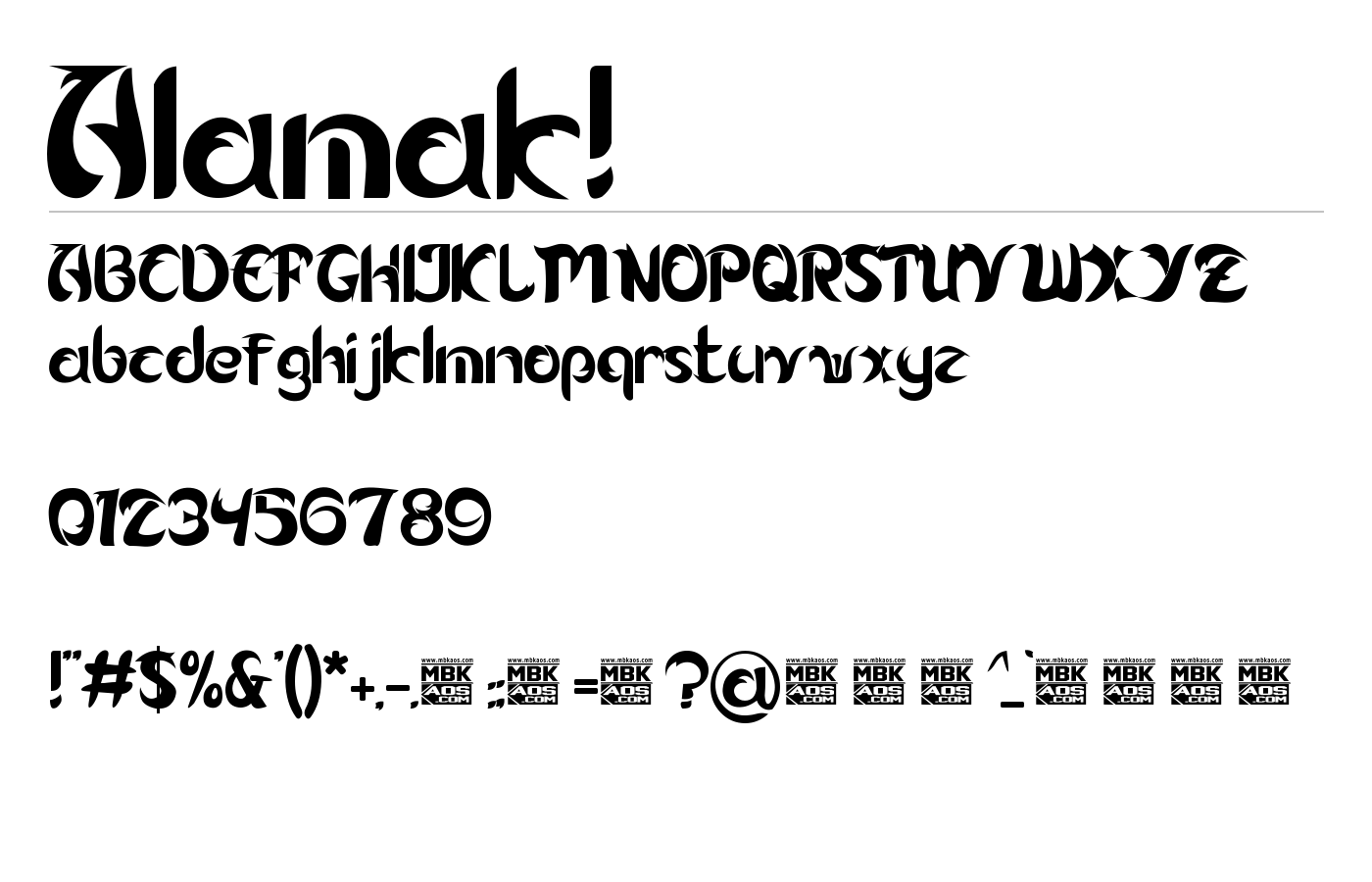
Alamak! is a bold, decorative serif font with a dramatic, artistic flair that combines sharp and curved strokes to create a dynamic, almost calligraphic appearance. Its high contrast and unique letter shapes give it a playful yet sophisticated personality, making it ideal for eye-catching headlines, logos, and creative projects that seek a distinctive, expressive style. This font works best where a strong visual impact is needed, adding a touch of elegance and originality to branding and editorial designs.
Alamak! Font